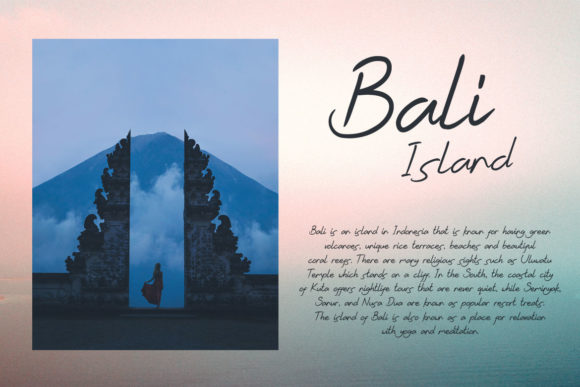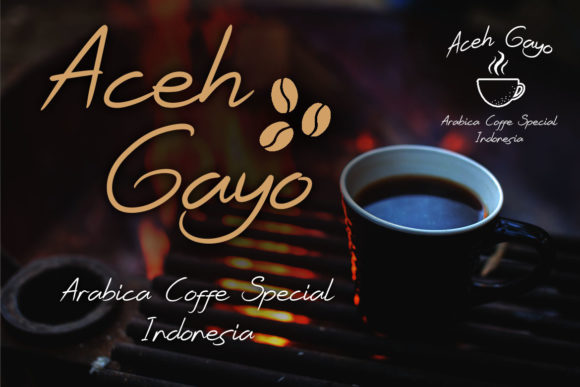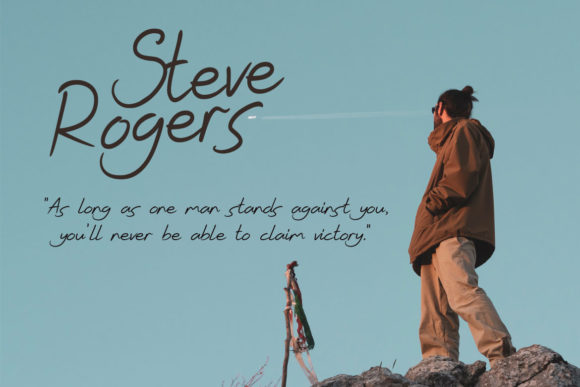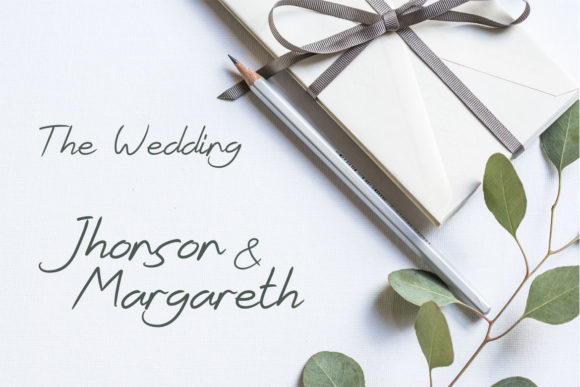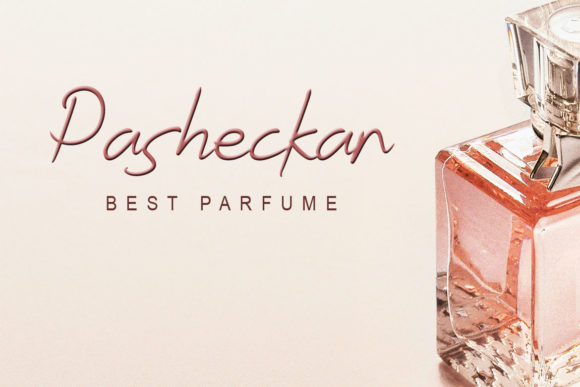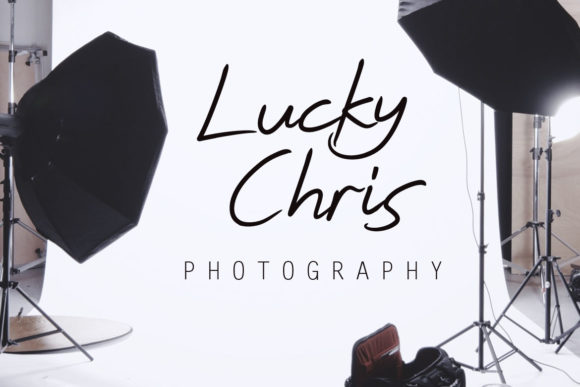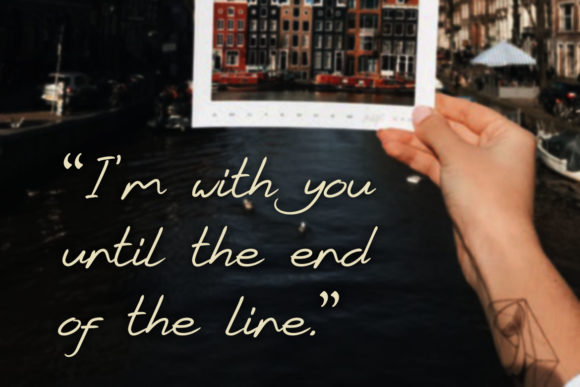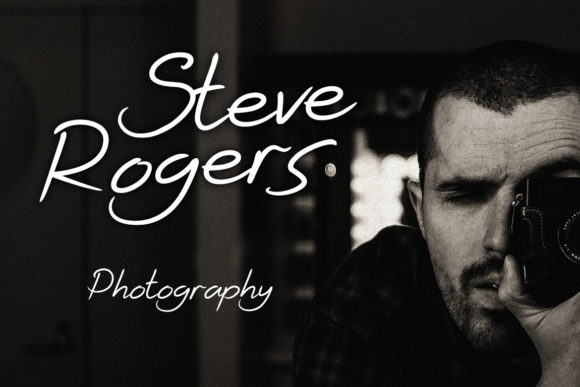
Kirana Script Font
About Kirana Script Font
Kirana is a stunning handwritten font with an amazingly light feel. It will add a contemporary twist to any design project.